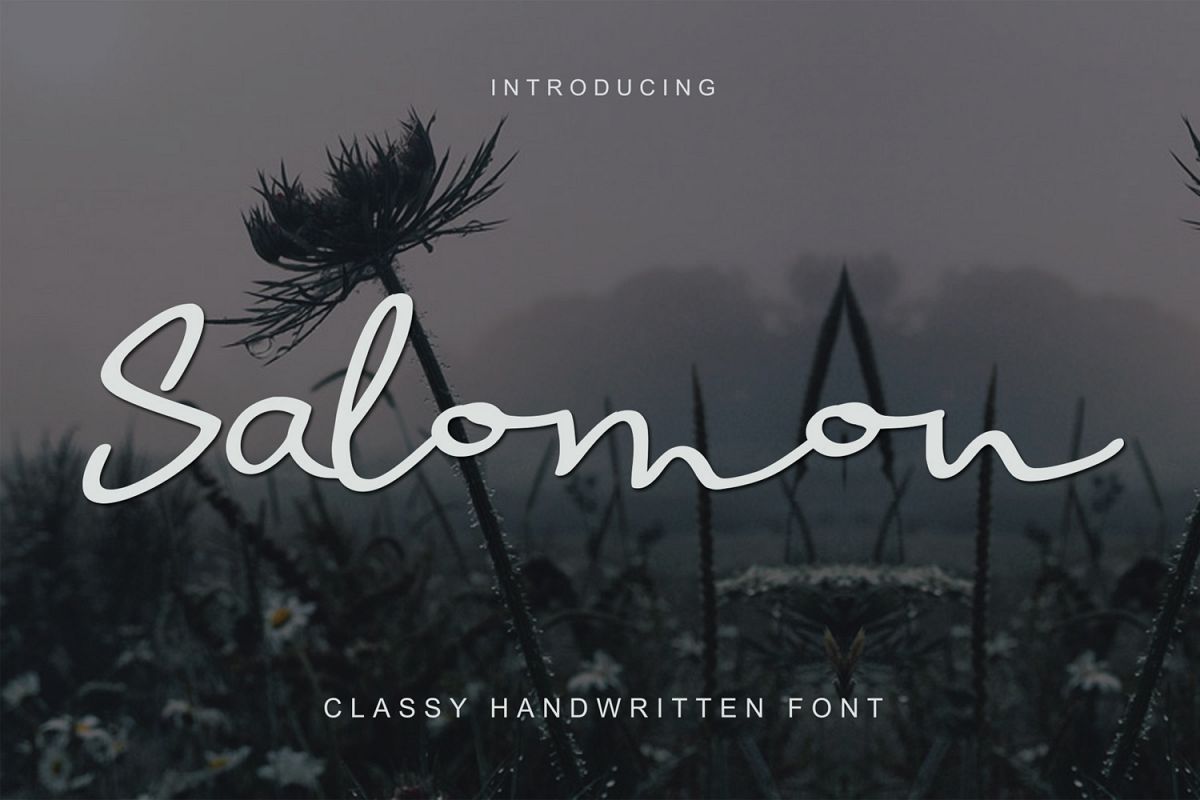
Salomon Sign
salamon
Basically inspired by sign handwriting signatures from some font like Saginaw, this font is also suitable for the purposes of wedding, branding, tagline branding, head banner or corps letter good looking with ligatures